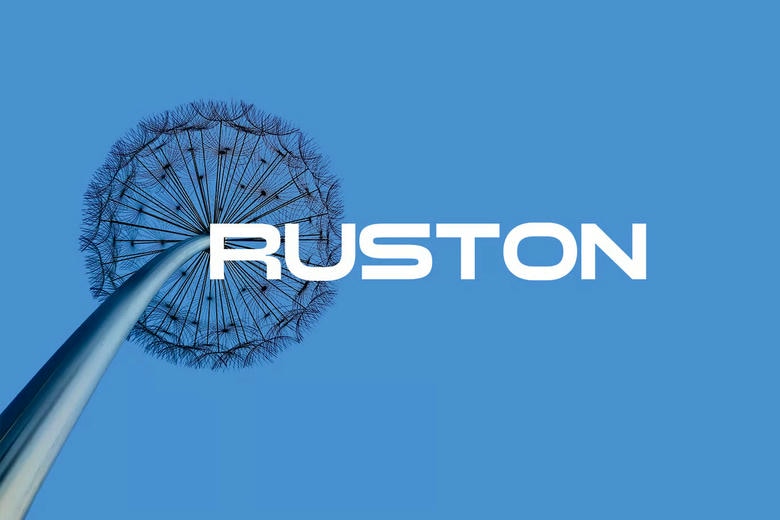
Rostun Font
Rostun is a bold, modern display typeface designed to catch the eye. Made by Foxtype, it uses clean geometric shapes and strong letterforms, making it ideal for brands and designs that want to stand out.
Auston’s futuristic style and balanced spacing make it a great option for logos, headlines, posters, packaging, tech brands, gaming visuals, and more. This font gives your design a bold, stylish look that is easy to read and helps it stand out.
Rostun Sans Serif Font